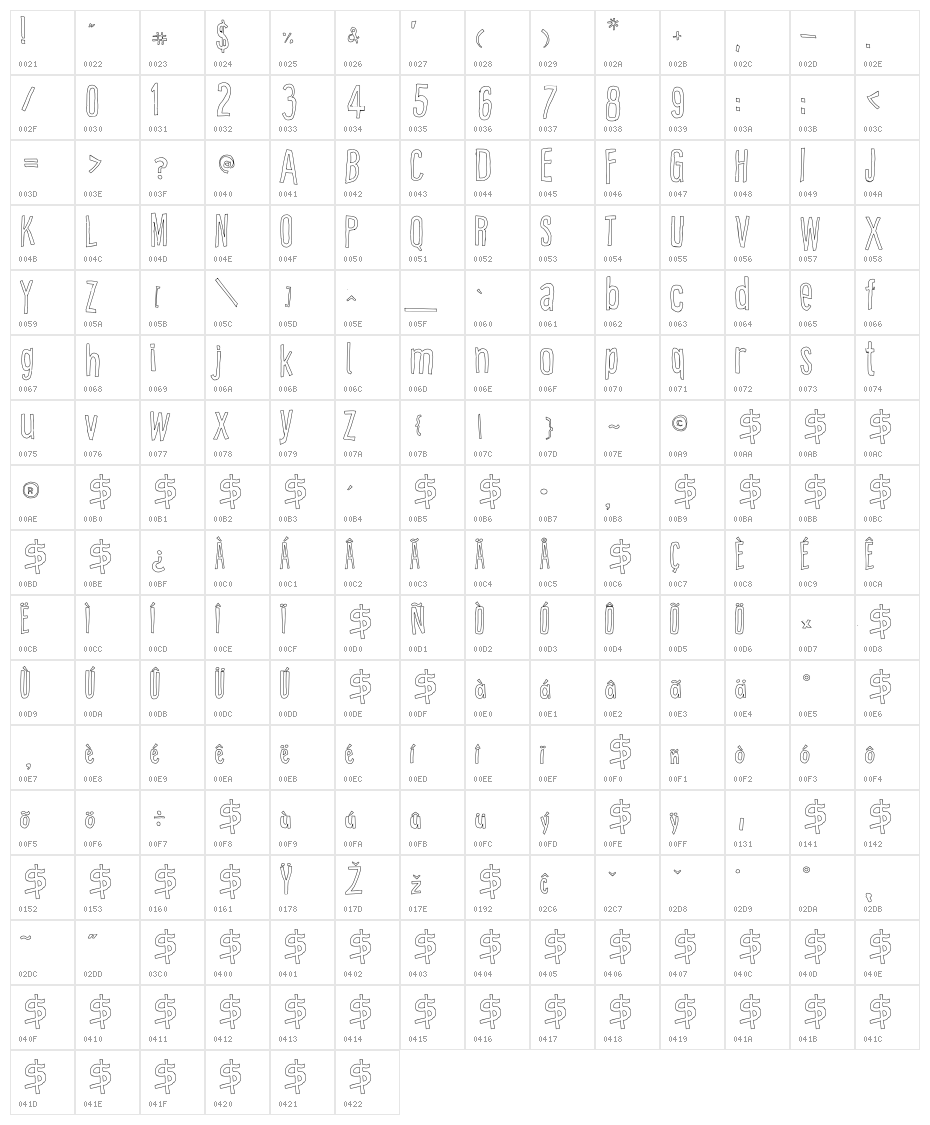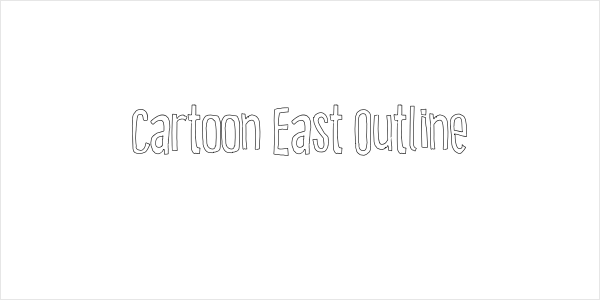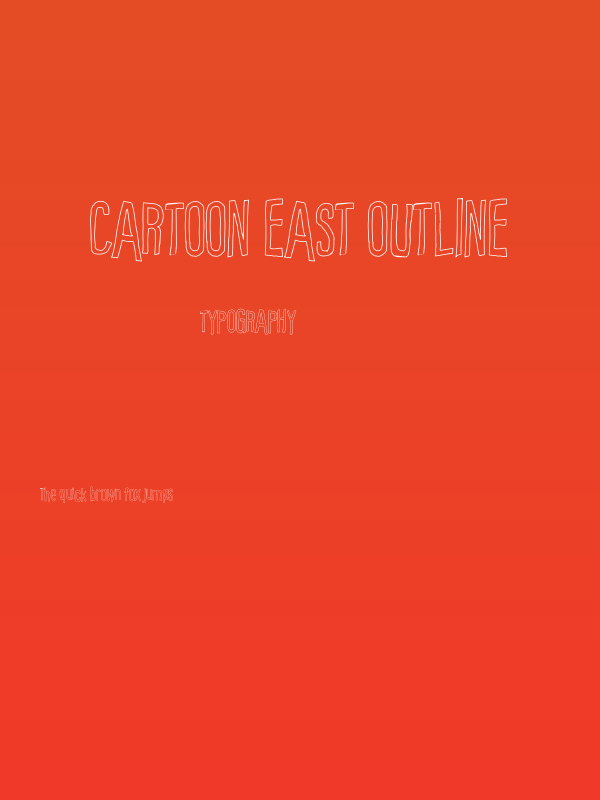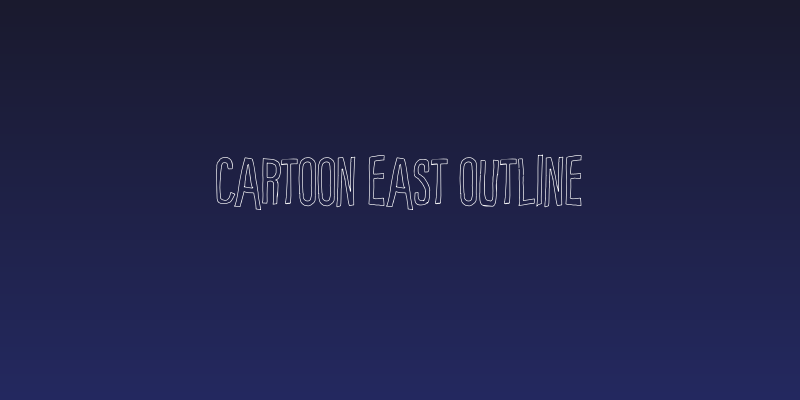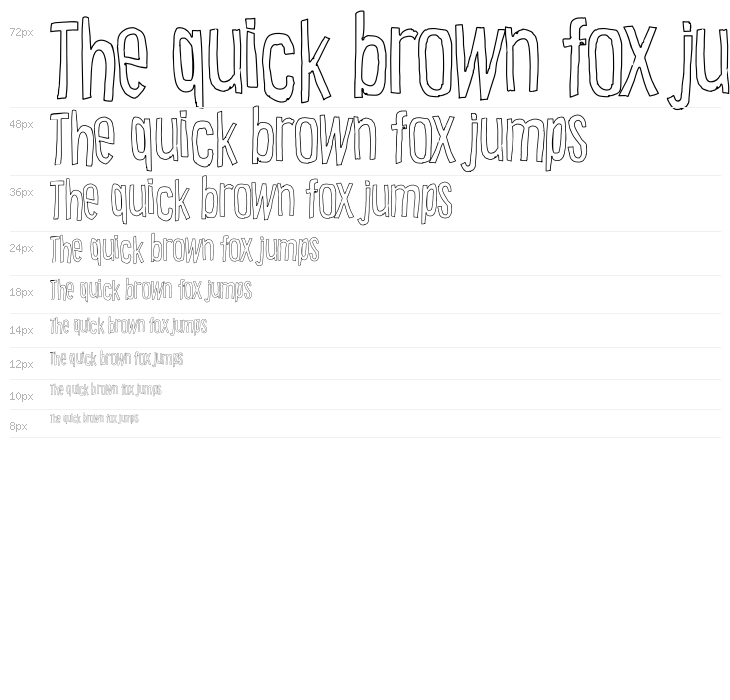
Cartoon East Outline Font
Cartoon East Outline Description
This playful and whimsical font features an outline style that gives it a cartoonish and hand-drawn appearance. The letters are tall and slightly irregular, adding to the casual and fun vibe. The uppercase and lowercase characters maintain a consistent style, with a slight tilt and uneven lines that enhance the informal look. The numbers and special characters follow the same design, making the font versatile for various creative projects. Its unique outline design makes it stand out, perfect for projects that require a touch of humor and creativity.
| Proposed Projects | Ideal for children's books, comic strips, playful branding, and creative posters. |